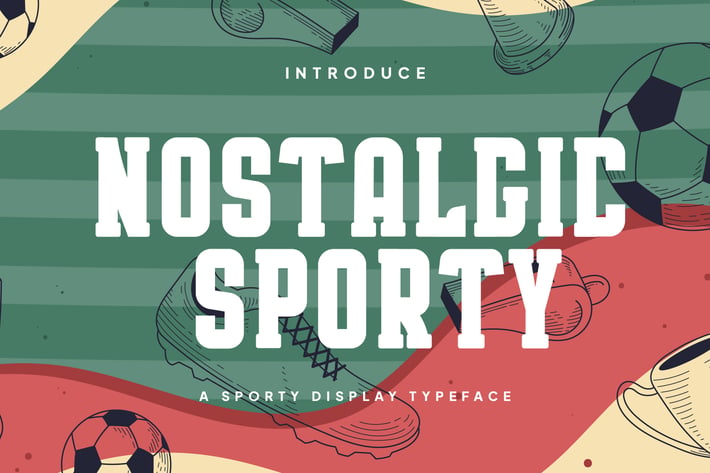
Nostalgic Sporty - Sporty Display Typeface
Nostalgic Sporty is a sporty display font inspired by the golden age of sports and retro graphic design.
The letters are bold and solid with strong lines and sharp angles. This gives a strong, dynamic, and energetic impression.
This font has a distinctive sporty style with a nostalgic feel. This can be seen from the use of design elements such as slanted lines, prominent capital letters, and vintage effects.
Nostalgic Sporty gives an impression of boldness, confidence, and enthusiasm. This font is suitable for use in designs that want to emphasize the sporty and energetic side, such as posters, banners, sports team logos, and merchandise.